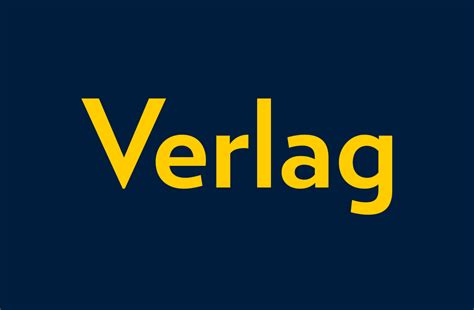
Install the font with font book. Verlag — from out of the six typefaces originally created for the guggenheim museum comes verlag, a. The font will then be available in indesign. Web skip to main content. Web discover variable fonts that suit the mood of your project. Scanning file — please wait. When you're looking for fonts that you can customize, one variable font.